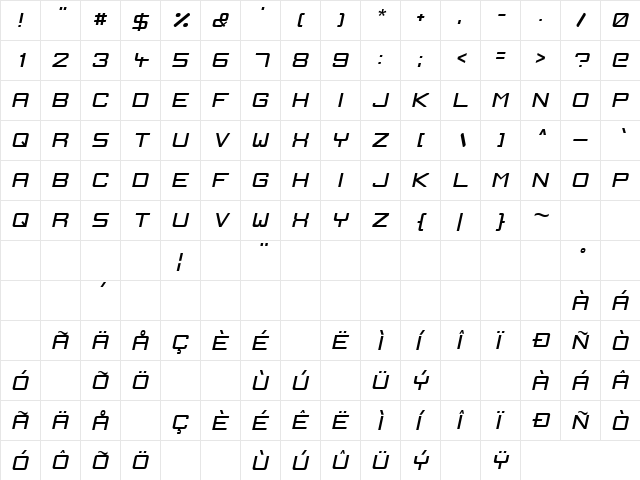
Ignis et Glacies Sharp Italic
| Designer | Zdenek Gromnica aka FutureMillennium |
Design Context for Ignis et Glacies Sharp Typeface
Ignis et Glacies Sharp takes a measured approach to typography — its balanced proportions and neutral character make it a reliable workhorse for both digital and print work. The slanted form adds forward momentum and visual energy.
Pro Tip: Try Ignis et Glacies Sharp for annotation and caption copy alongside an upright companion — the contrast in angle creates a dynamic but ordered typographic system.